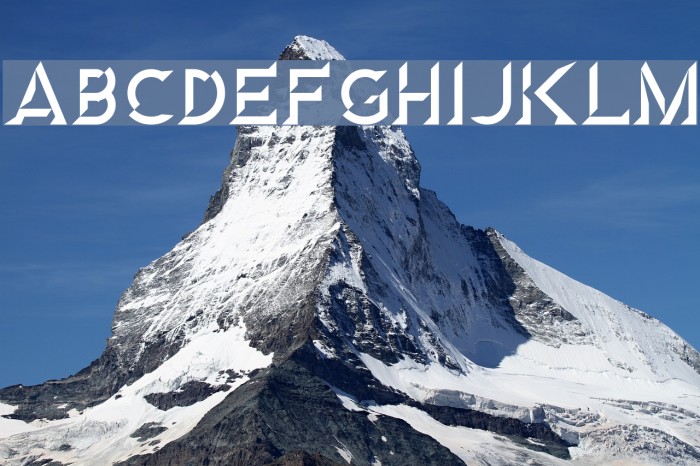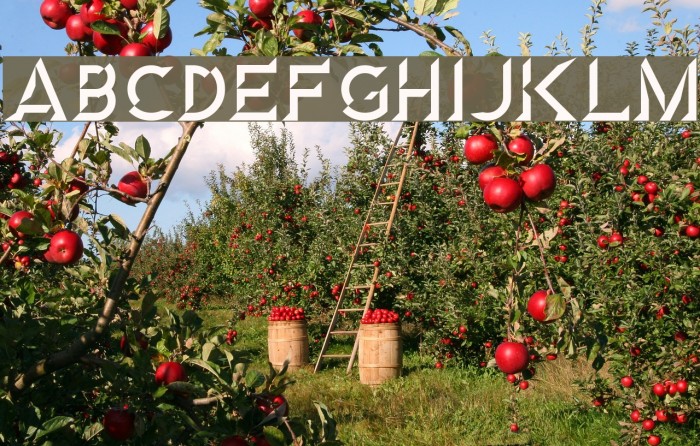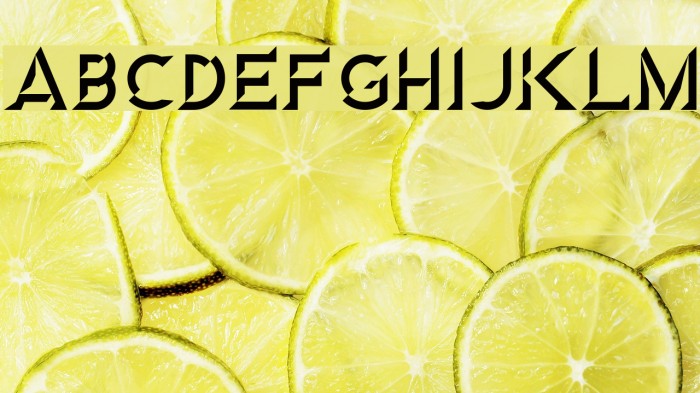
Diamond Font
Diamond Description
This font features a bold and angular design, characterized by sharp edges and geometric shapes. The uppercase letters are crafted with a distinct, futuristic style that gives a sense of strength and modernity. The absence of lowercase letters and numerals suggests a focus on impactful, headline-style text. The special characters are not present, indicating a limited but focused character set. The overall appearance is striking and visually commanding, making it suitable for projects that require a bold statement.
A bold, angular font with a futuristic and geometric design from Decorative fonts.
- Proposed Projects: Ideal for branding, logos, posters, and any design requiring a strong, modern aesthetic.